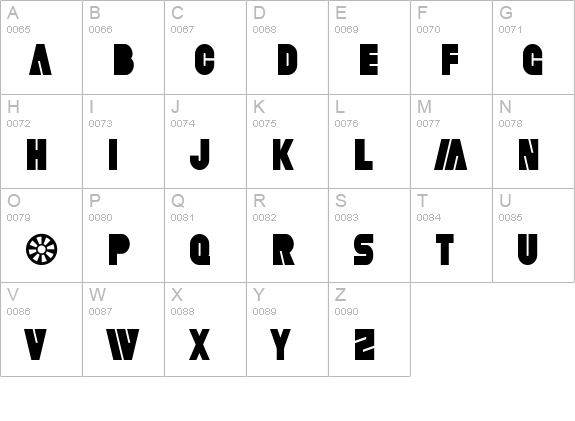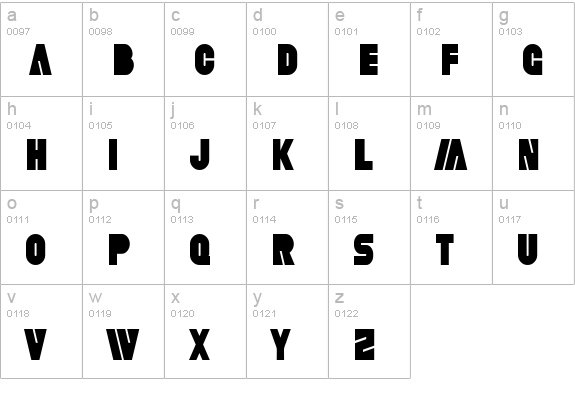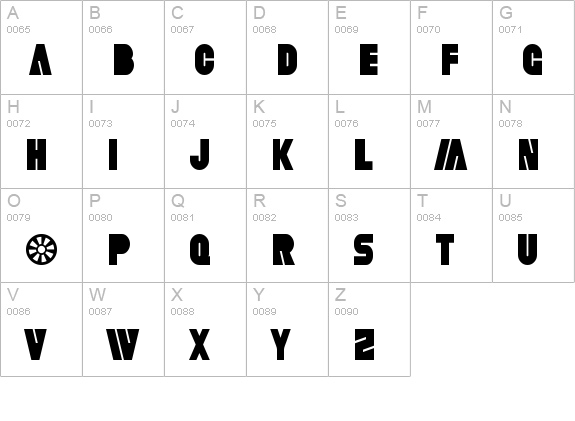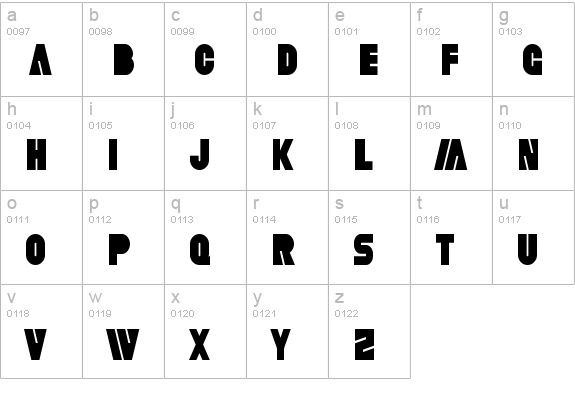
SF Fortune Wheel Condensed Font Details
SF Fortune Wheel Condensed is a distinctive, condensed-width variant in the SF typeface family \xE2\x80\x94 well suited to design and typography projects.
SF Fortune Wheel Condensed is a sleek and stylish font that exudes a sense of modernity and sophistication. With its condensed letterforms and clean lines, this font is perfect for any design project that requires a touch of elegance. Whether you are creating a logo, a website, or a poster, SF Fortune Wheel Condensed will elevate your design to the next level. This font features a unique combination of sharp angles and rounded curves, resulting in a visually striking and dynamic appearance. The condensed letterforms allow for maximum legibility and readability, making it an ideal choice for both display and body text. One of the best things about SF Fortune Wheel Condensed is that it is absolutely free to download. Yes, you heard that right – this high-quality font is available for free at FontsMarket.com. This means that you can add a touch of class to your designs without breaking the bank. Whether you are a professional designer or a hobbyist, SF Fortune Wheel Condensed is a must-have font in your collection. Its versatility and timeless appeal make it suitable for a wide range of projects, from branding and packaging to editorial and advertising. So why wait? Head over to FontsMarket.com and download SF Fortune Wheel Condensed today. With its clean and contemporary design, this font will undoubtedly give your designs a fresh and professional look. Don't miss out on this amazing opportunity to enhance your creative projects with a font that is freely available and ready to elevate your designs to new heights.